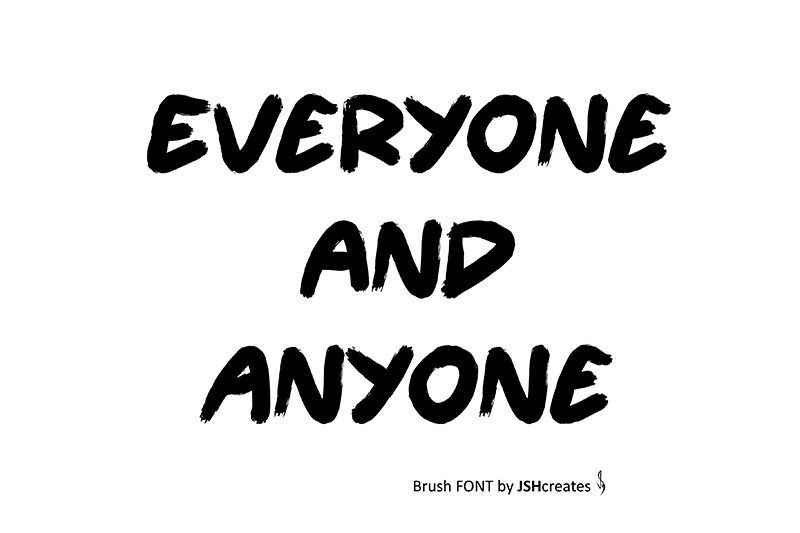
Everyone and Anyone font by JSH creates is a free brush font inspired by the fluid beauty of brush strokes. Its dynamic and bold appearance is complemented by expressive brush-like textures and an informal, modern artistic style. This font captures both visual and emotional attention and communicates quickly and effectively. Capture the energy of a scene and even a brand in an instant with this remarkable display font.
Bring energy through product designs, ads, branding items we see every day like magazines, headlines, posters, book covers, digital ads, social media posts, and packaging.